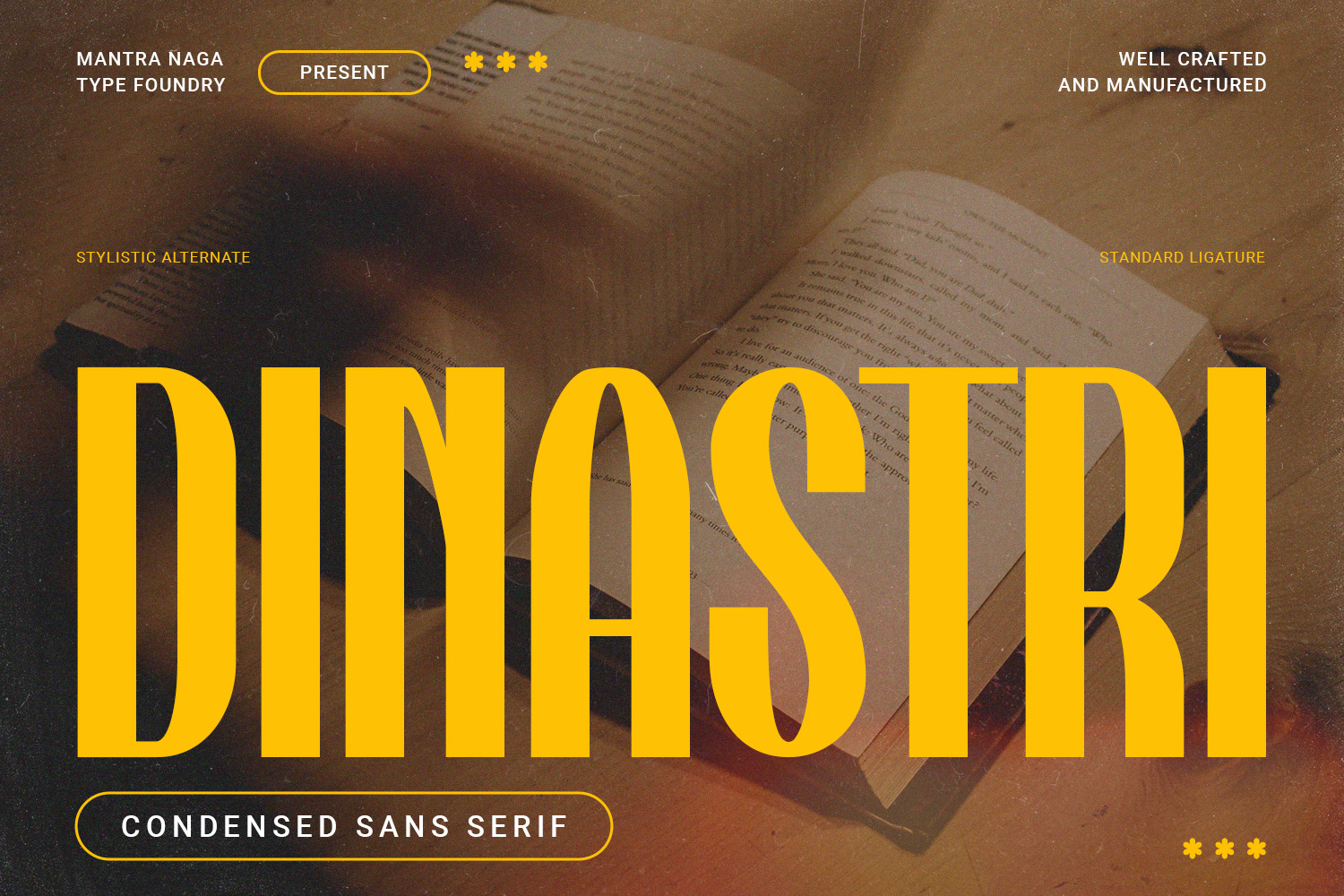
Dinastri Font
Designed by Mantra Naga Studio
About Dinastri
Dinastri font is a bold and condensed sans serif style, conveying a clear and bold message. With a collection of 385 glyphs, this font conveys strength in every character created, perfect for design projects that need a statement that makes a statement. OpenType features that include character and ligature alternatives provide flexible and creative design expression capabilities. Extended support for up to 89 international languages makes Dinastri the universal choice for global projects, combining a bold modern feel with highly effective design qualities.